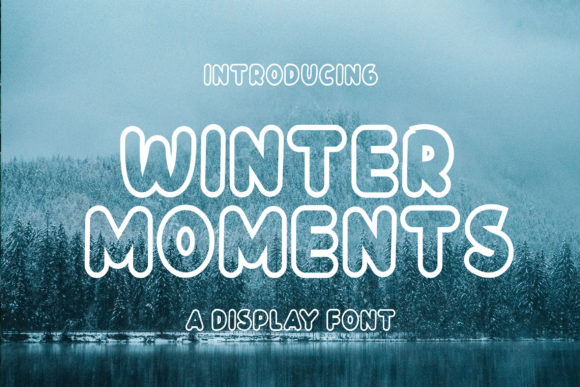
In the realm of digital artistry, where visual aesthetics reign supreme, the Winter Moments Font emerges as a captivating display font, poised to transport your creative visions to new heights. Picture this: a font that effortlessly blends the crispness of winter's chill with the warmth of a cozy fireside, inviting you to craft designs that resonate with both elegance and playfulness.
With Winter Moments Font, you'll embark on a typographic adventure, discovering endless possibilities to transform your digital creations. Its meticulously crafted outlines dance across the screen, creating a visual symphony that captures attention and leaves a lasting impression. Whether you're a seasoned designer seeking to elevate your work or a budding enthusiast eager to make a statement, this font is your perfect companion.
Unleash your creativity and explore the boundless applications of Winter Moments Font. Design eye-catching logos that command attention, social media posts that spark engagement, and website headers that leave a lasting impression. Let your imagination run wild as you craft stunning posters, flyers, and invitations that are guaranteed to turn heads.
But Winter Moments Font is more than just a visually stunning font; it's an emotional journey that speaks to the heart. Its playful, charming demeanor evokes a sense of nostalgia, reminding us of the magic of winter's first snowfall. With each stroke of the pen, you'll feel the crispness of the winter air and the warmth of a crackling fire, creating designs that resonate with a timeless charm.
Join the creative revolution and embrace the power of Winter Moments Font. Let your designs shine with a touch of whimsical elegance. Whether you're a seasoned professional or just starting out, this font will ignite your imagination and empower you to create masterpieces that capture the essence of winter's allure. Experience the magic of Winter Moments Font today and elevate your creative journey to new heights.